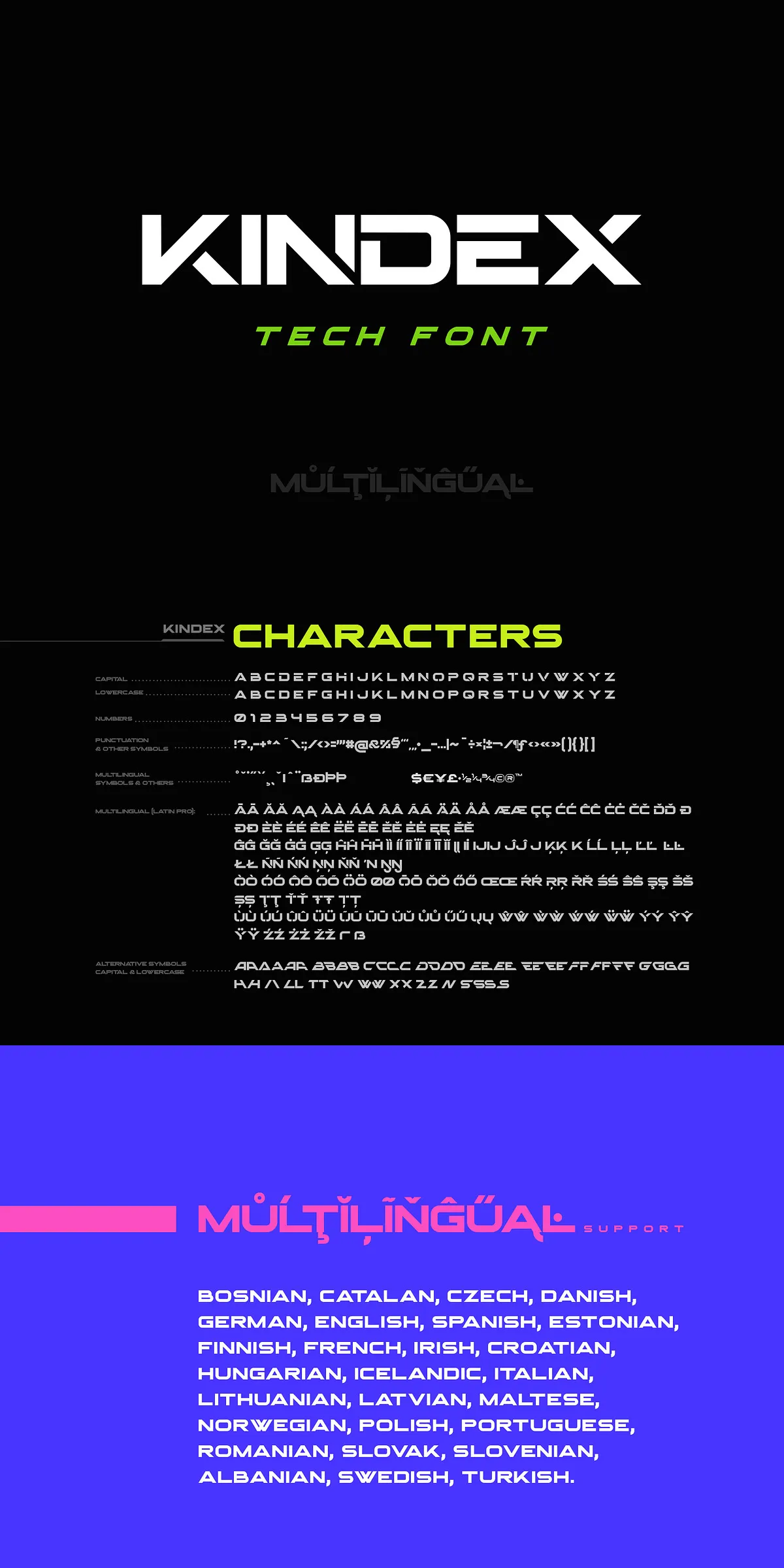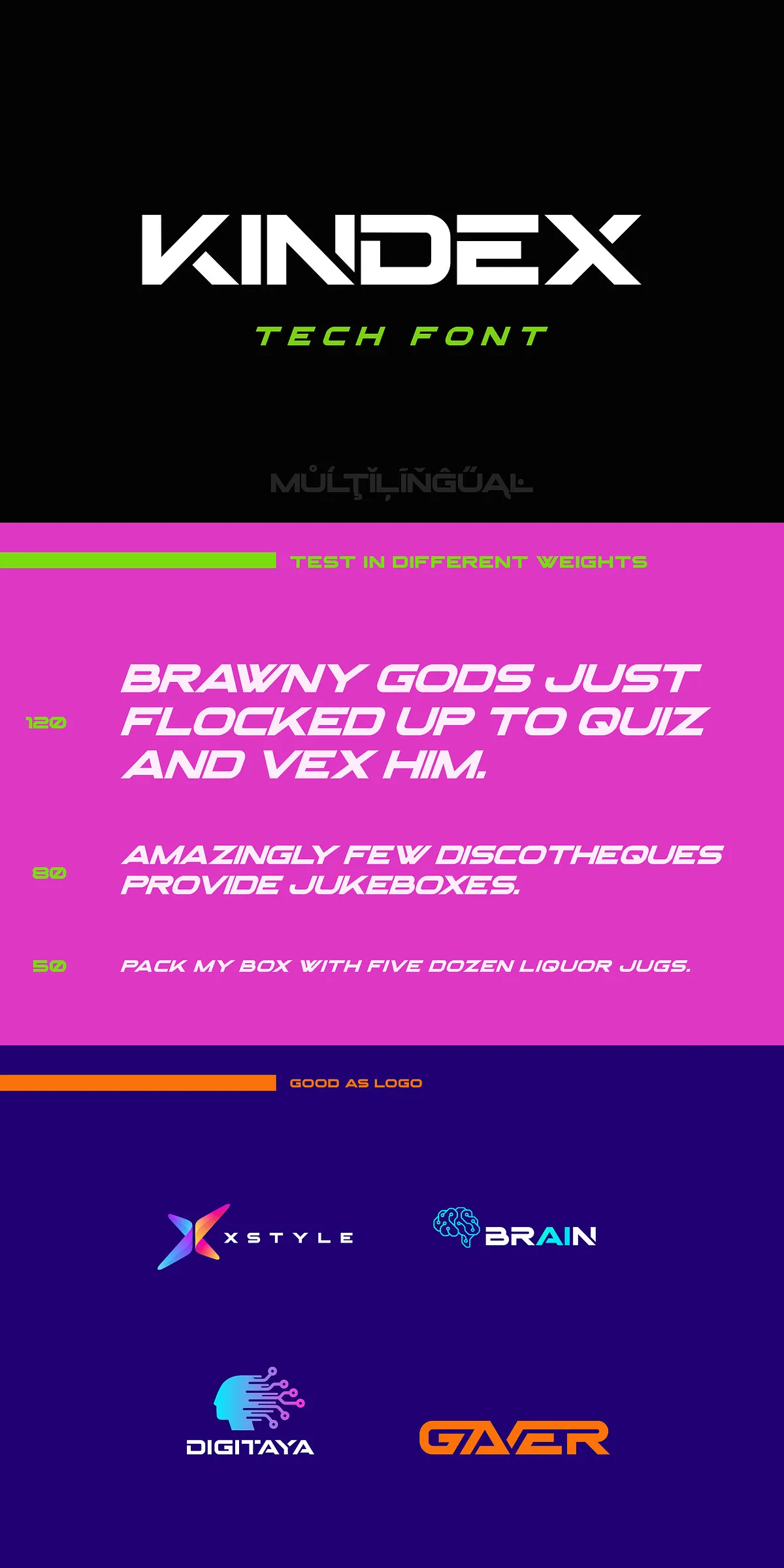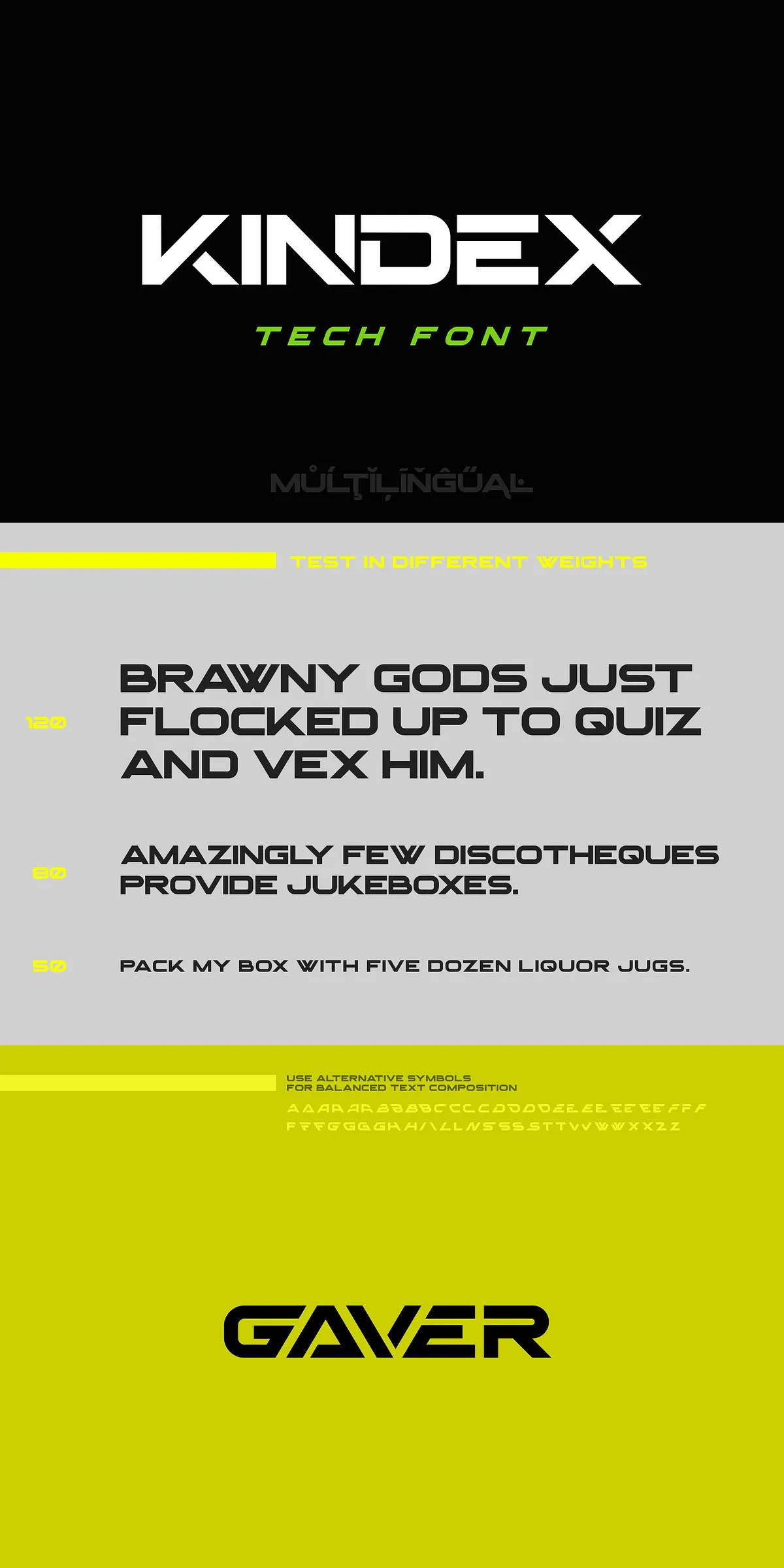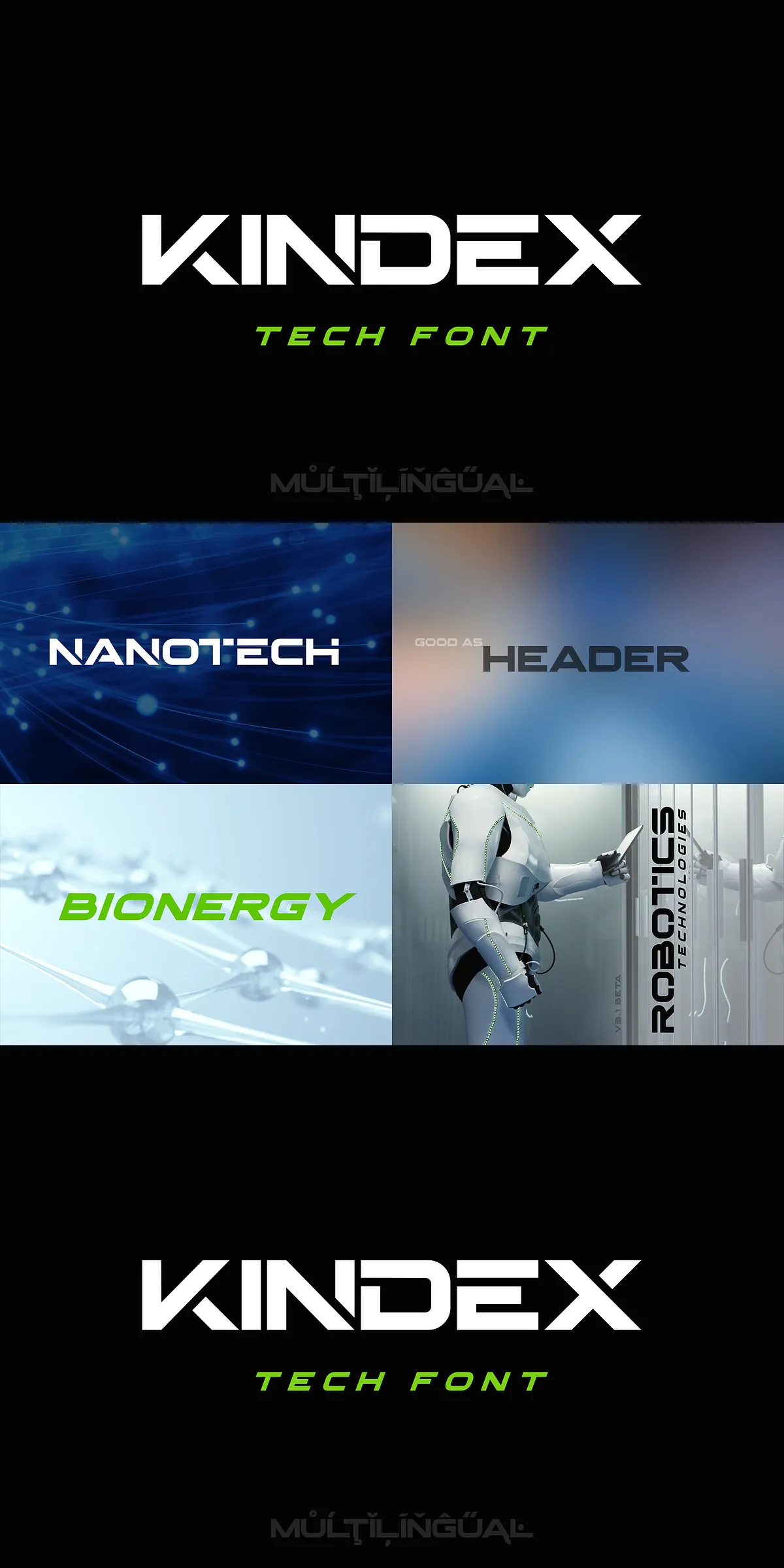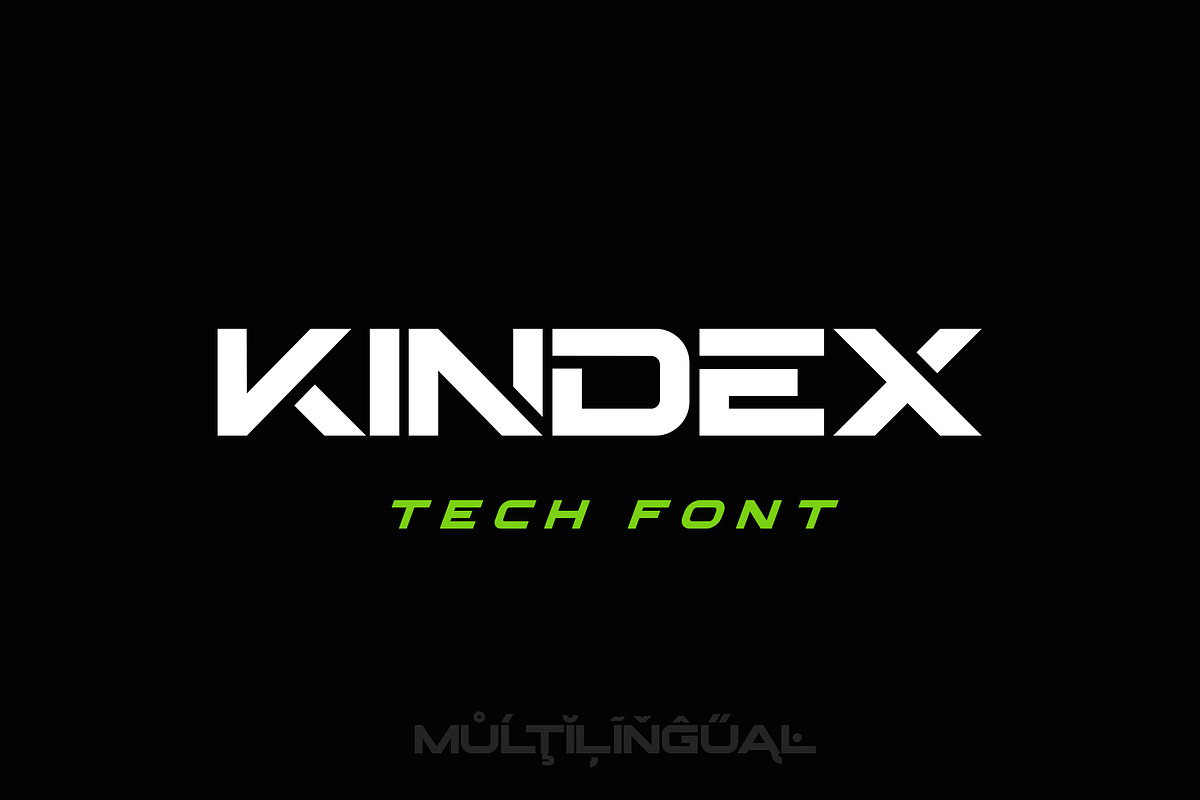
Kindex
Step into the next era of visual communication with Kindex Font — a bold, modern typeface engineered for the high-stakes world of technology, innovation, and corporate leadership. Designed as a seamless fusion of corporate strength and technological futurism, Kindex delivers impact in every pixel and stroke. Whether you’re crafting a startup logo, a product launch campaign, or a virtual reality interface, this font brings authority, clarity, and visionary edge to your work.
Command Attention with a Techno-Corporate Identity
Bold, Crisp, and Built for Scale
Kindex doesn’t whisper — it makes a statement. With its clean geometric structure, slightly tapered serifs, and sharp letterforms, it projects confidence and control. The font’s refined balance between technical precision and human-readable clarity makes it ideal for headlines, brand names, and display applications where impact and professionalism go hand in hand.
Its case-sensitive design ensures you can leverage uppercase power for headlines and lowercase subtlety for body text — a rare advantage in modern type design. Use it to create visual hierarchy with intention, making headlines leap off the page and body copy remain crisp and readable.
Engineered for High-Tech Environments
Kindex was built for future-focused projects across industries:
• Corporate branding for tech firms, AI startups, and financial innovation hubs
• Robotics & android design — perfect for interfaces, product names, or character identities
• Virtual reality (VR) and augmented reality (AR) — optimized for on-screen readability and depth perception
• Space exploration brands — ideal for organizations or campaigns inspired by interstellar ambition
• Sports and fitness tech — use for energetic campaigns that blend strength and innovation
• Futuristic packaging, UI/UX, and digital experiences
Whether your vision is sleek, cold, and minimalist — or bold, dynamic, and aspirational — Kindex adapts.
Unleash Creative Freedom with Advanced Features
Alternate Letters for Custom Brand Identity
Go beyond standard typography. Kindex includes an extensive set of contextual and stylistic alternates — custom glyphs that change based on surrounding letters or specific design settings. Use them to:
• Break visual monotony in large headlines
• Create a unique logo with handcrafted variation
• Design alternate versions of brand names for different campaigns
• Simulate machine-generated lettering or digital overlay effects
Each alternate is expertly crafted to maintain the font’s cohesive tone — ensuring your creative freedom never compromises professional quality.
Global Language Support for International Projects
Designed with global scalability in mind, Kindex supports **27 languages**, making it ideal for multinational brands and international tech ventures. The extended character set includes:
Perfect for localization, multilingual websites, tech documentation, or international product launches — with no compromise on typography quality.
Why Designers and Brands Rely on Kindex
Because the Future Should Look Sharp
When you choose Kindex, you’re choosing a typeface that doesn’t just look futuristic — it feels it. It’s not just a font. It’s a statement of intent: we’re building the future, and we’re not backing down.
Whether you’re a digital agency, a tech founder, or a creative director driving innovation, Kindex helps you own your space. It transforms ideas into identities, concepts into brands, and designs into experiences.